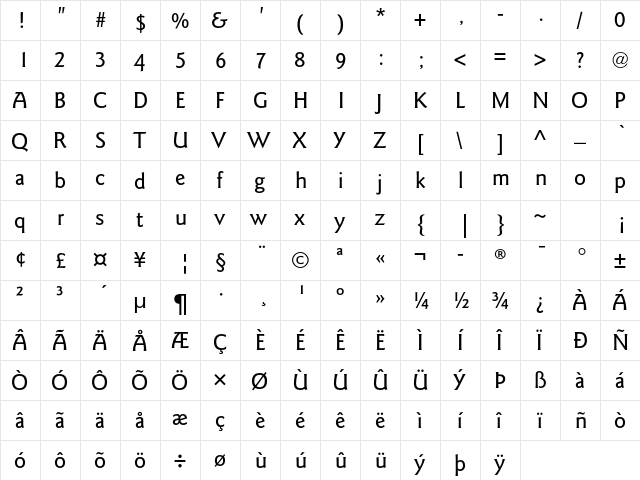
ITC Goudy Sans Pro Medium Font Preview
ITC Goudy Sans Pro Medium
ITC Goudy Sans Pro Medium Font Details
| Foundry | Monotype Imaging Inc. |
| Designer | Frederic W. Goudy |
Design Context for ITC Goudy Sans Pro Typeface
ITC Goudy Sans Pro takes a measured approach to typography — its balanced proportions and neutral character make it a reliable workhorse for both digital and print work.